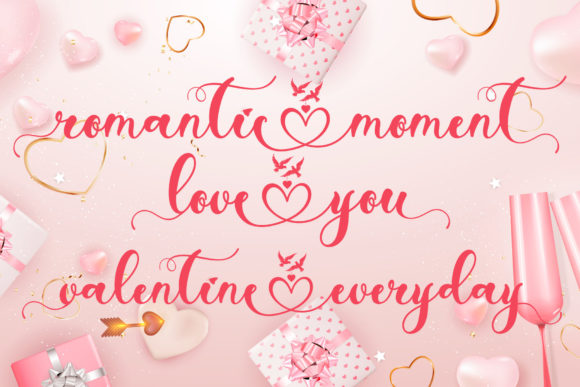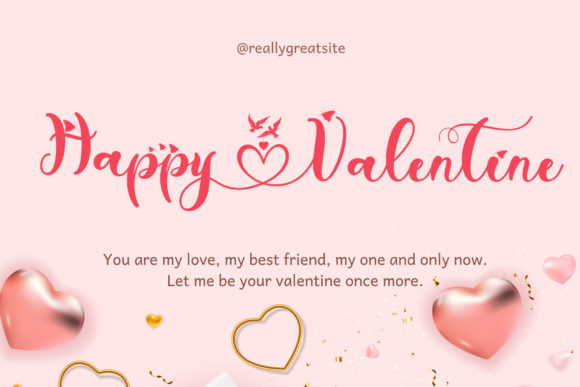
With Lovely Font
db-ku.com - Script & Handwritten -- With Lovely is a pretty script font. This font has beautiful decorations in the form of love, birds, and butterflies. With Lovely is PUA encoded which means you can access all of the glyphs and swashes with ease!